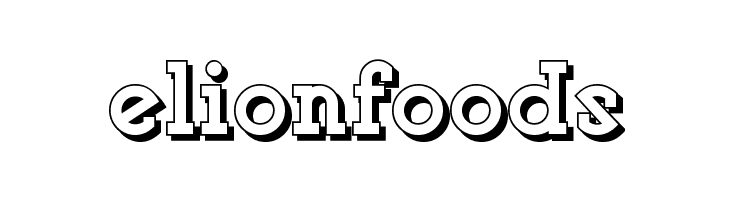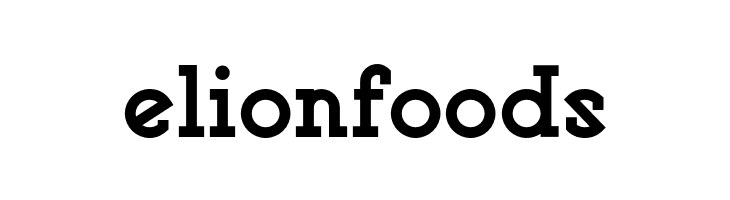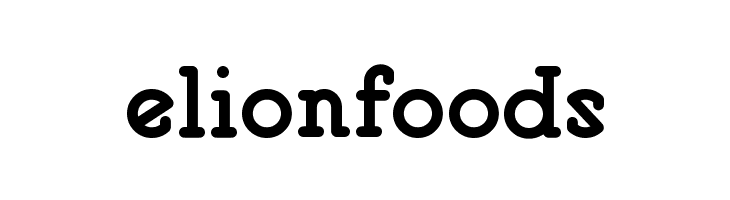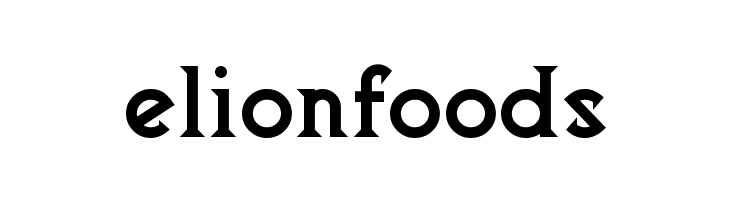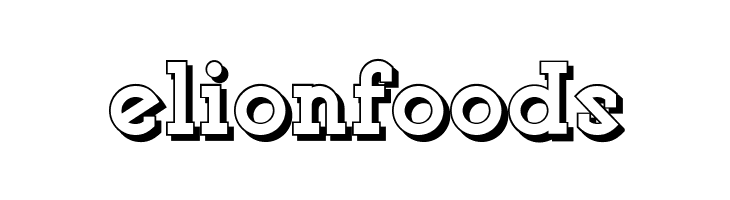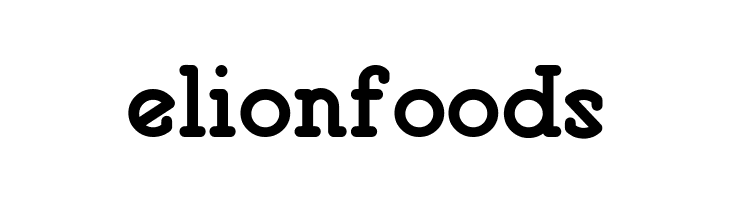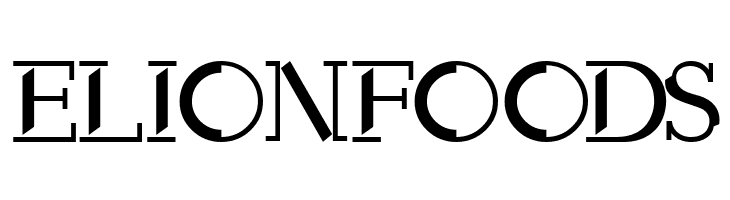
A bold, decorative font with a three-dimensional shadow effect.
A bold, geometric font with a strong, blocky appearance.
A bold, chiseled font with sharp edges and decorative serifs.
A bold, chiseled font with a strong, geometric design and historical flair.
A playful, rounded font with bold, approachable characters.
A bold, rounded font with a retro and playful style.
A bold, shadowed font with a three-dimensional, geometric style.
A bold slab serif font with geometric influences and uniform stroke width.
A bold, geometric slab serif font with a modern retro aesthetic.